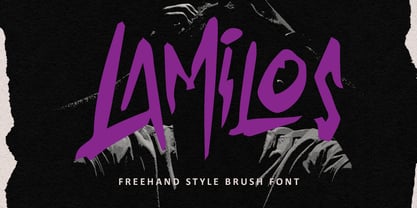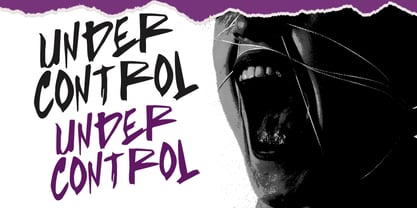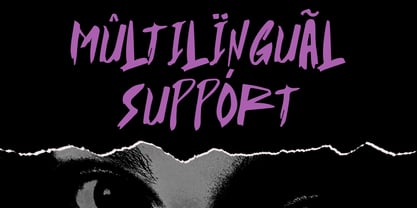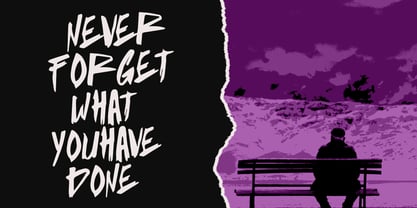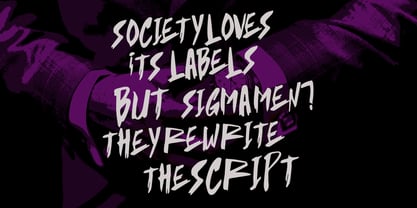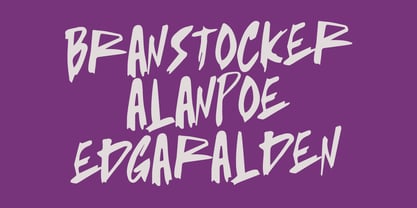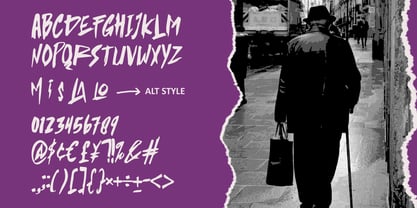
MC Lamilos
by Maulana Creative
The MC Lamilos Font Family was designed by Gilang Maulana and published by Maulana Creative. MC Lamilos contains 1 styles. More about this family
Lamilos is a authentic brush display font. Bold stroke, fun character with a bit of ligatures and alternates. To give you an extra creative work. Lamilos font support multilingual more than 100+ language. This font is good for logo design, Social media, Movie Titles, Books Titles, a short text even a long text letter and good for your secondary text font with script or serif. Make a stunning work with Lamilos font.
Designers: Gilang Maulana
Foundry: Maulana Creative